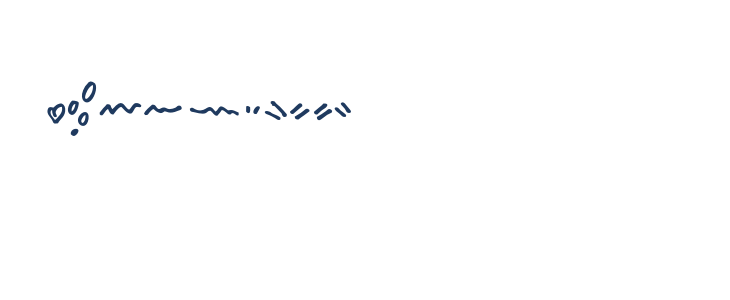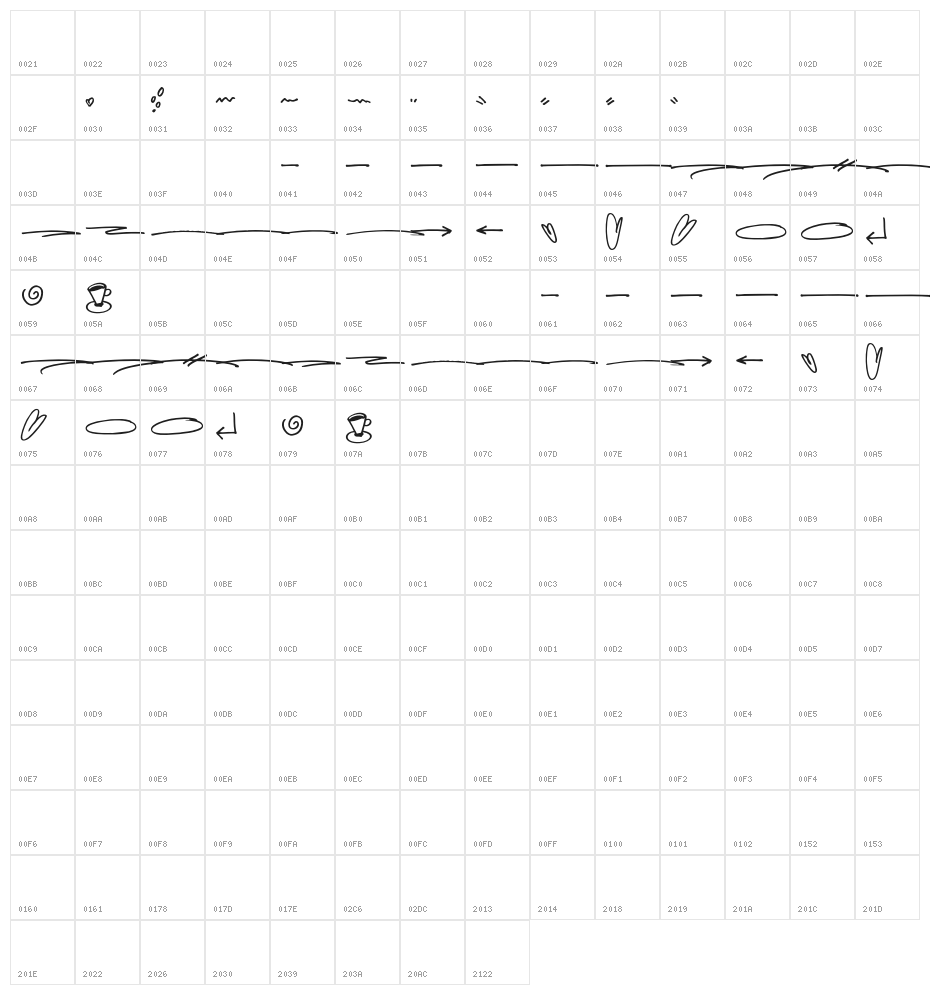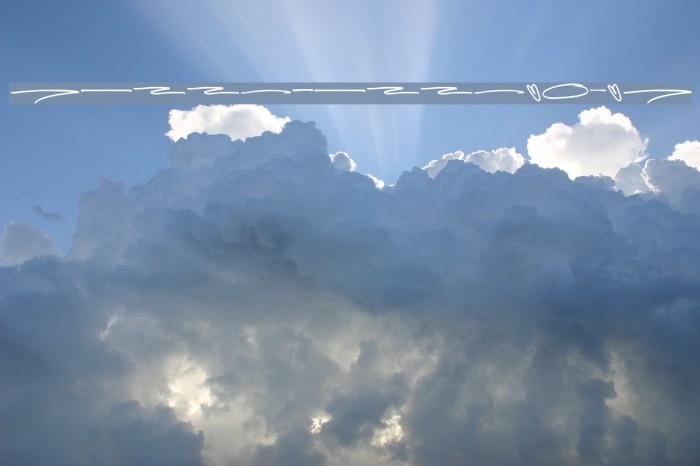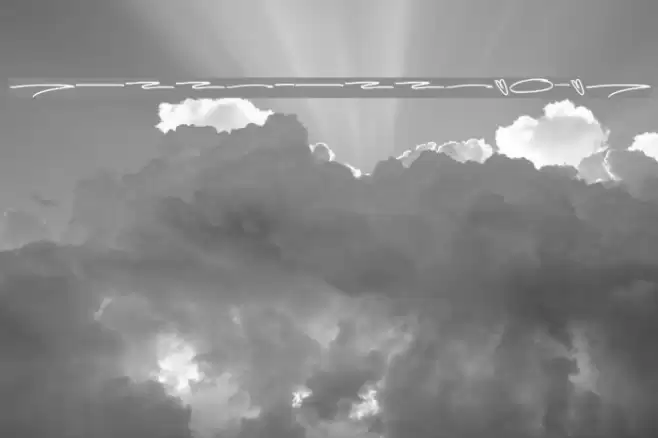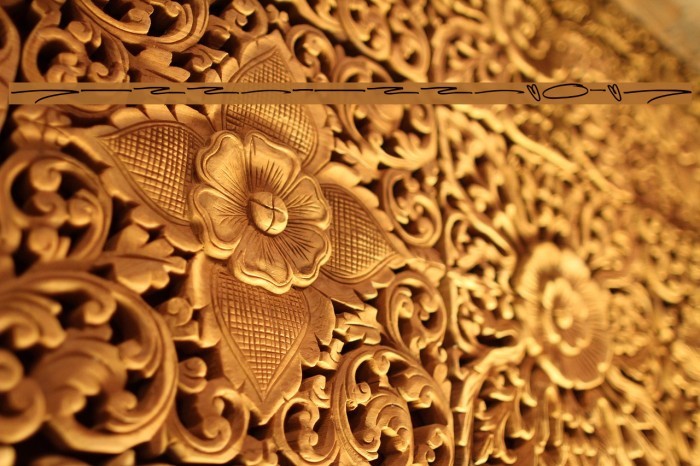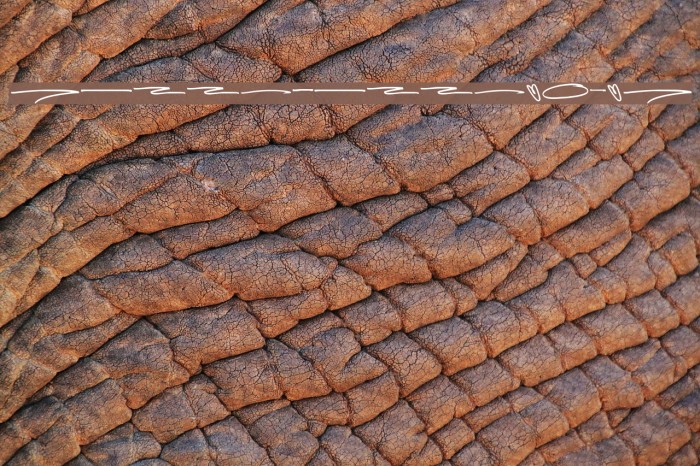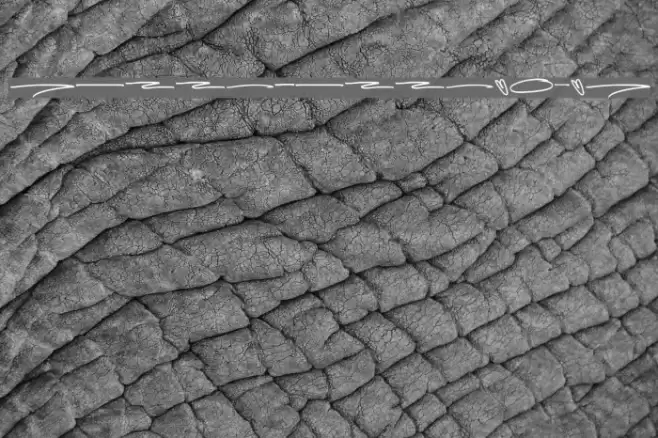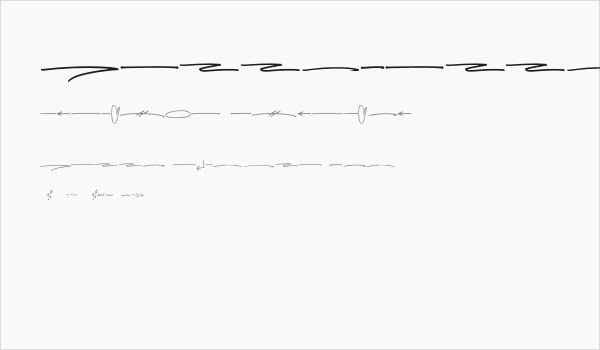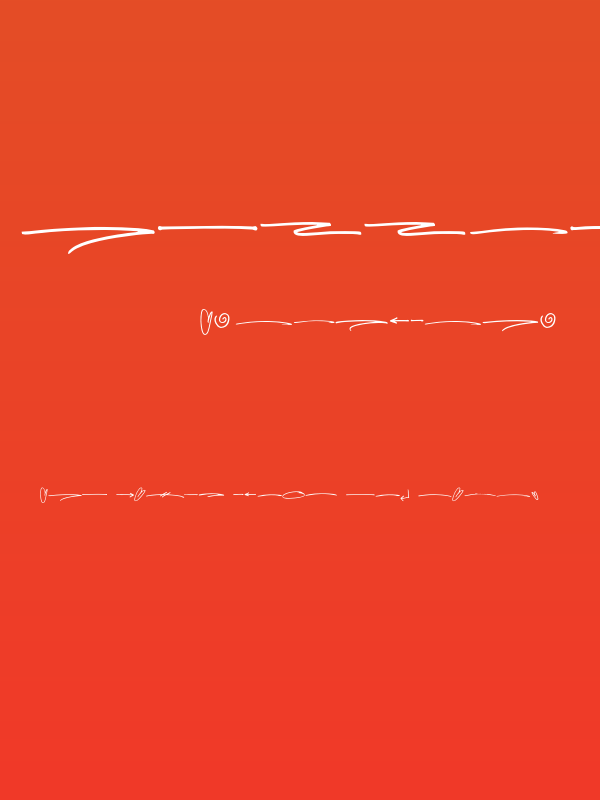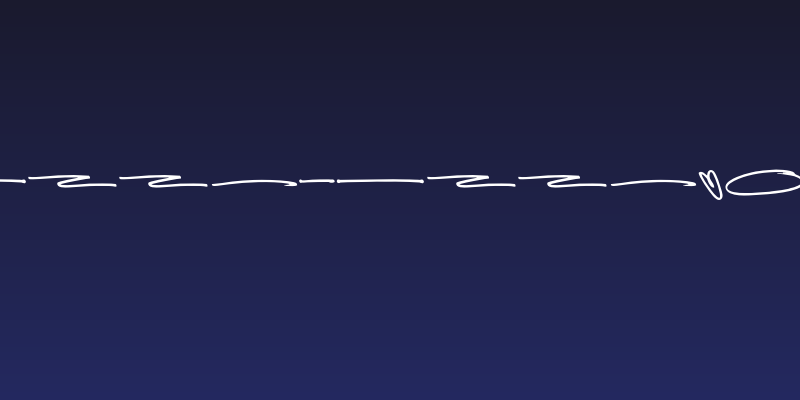
HellobelloSwash Font
HellobelloSwash Description
A whimsical, hand-drawn decorative set of swashes, arrows, hearts, coffee cups, and playful doodles, featuring irregular lines and organic shapes with a casual, informal feel.
| Overall Style | Decorative, Playful, Hand-drawn |
| Use Case | Decorative elements, Borders, Accents |
| Proposed Projects | Invitations, greeting cards, scrapbooking, playful branding, social media graphics, children's projects. |